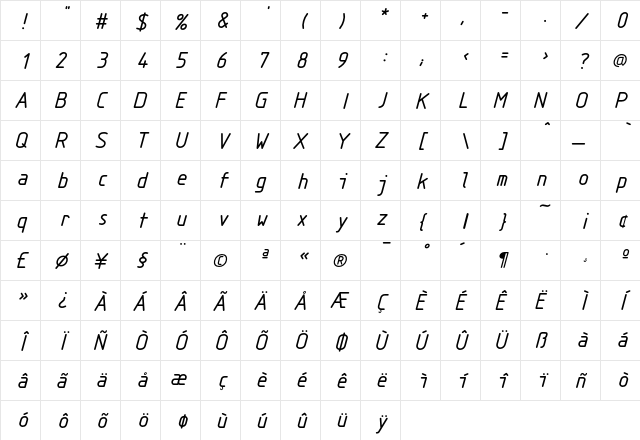
Isonorm3098 ItalicMonospaced
Design Context for Isonorm3098 Typeface
Isonorm3098 brings the precise, column-aligned rhythm of monospaced typography to designs that value technical clarity and systematic order. The dynamic lean of this cut emphasises speed and emphasis in any layout.